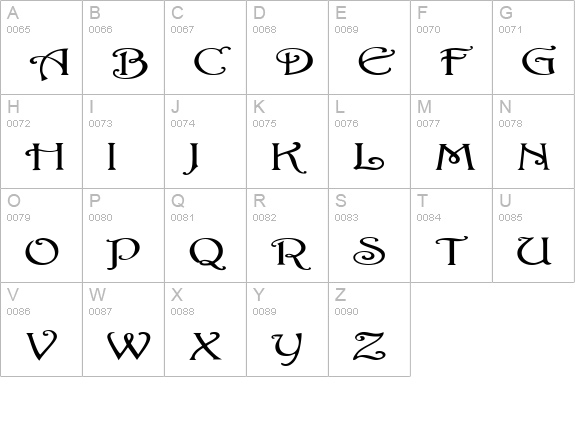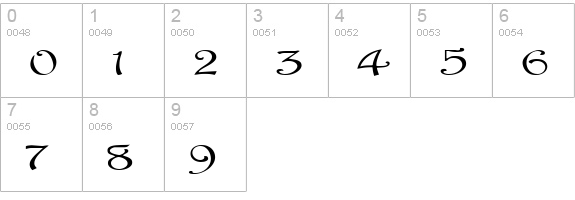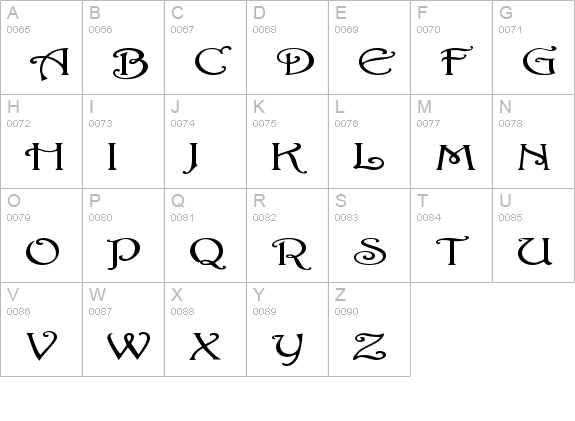
Elista Font is a modern and stylish typeface that exudes elegance and sophistication. With its clean lines and sleek design, Elista Font is perfect for a wide range of design projects, from branding to packaging to web design. This versatile font is sure to make your text stand out and leave a lasting impression. And the best part? Elista Font is completely free to download at FontsMarket.com! Whether you're a designer looking to add a new font to your collection or a business owner in need of a fresh look for your branding, Elista Font is the perfect choice. Don't miss out on this amazing opportunity to elevate your designs with this beautiful and free font.